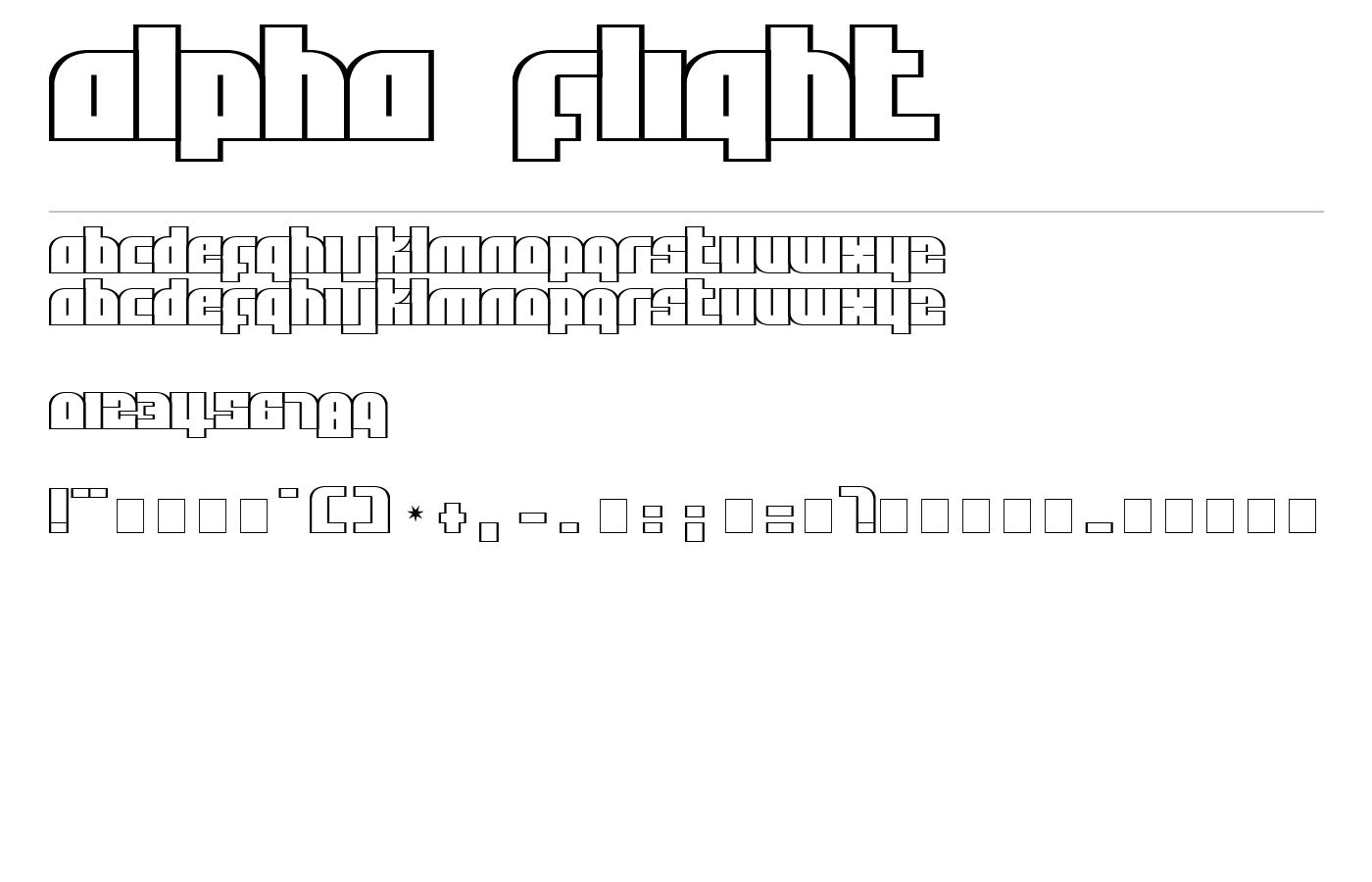
Alpha Flight is a bold, geometric sans serif font characterized by its blocky, square letterforms and consistent stroke weight, giving it a modern and futuristic vibe. Its compact structure and outlined style make it ideal for striking headlines, logos, and display use where a strong, tech-inspired aesthetic is desired. This font works best in branding and design projects that seek to convey strength, innovation, and a contemporary edge.
Alpha Flight Font
About Alpha Flight Font